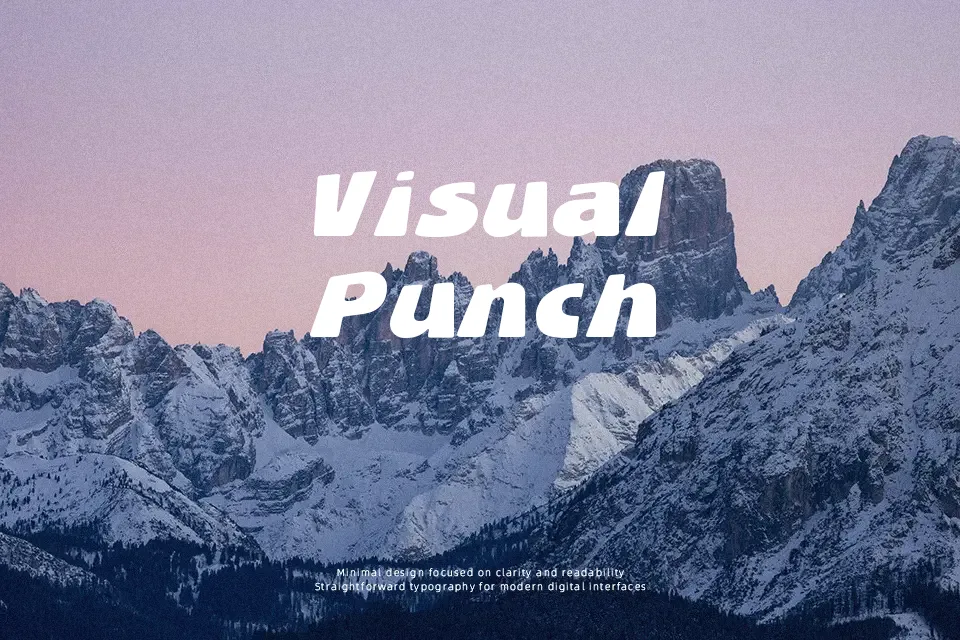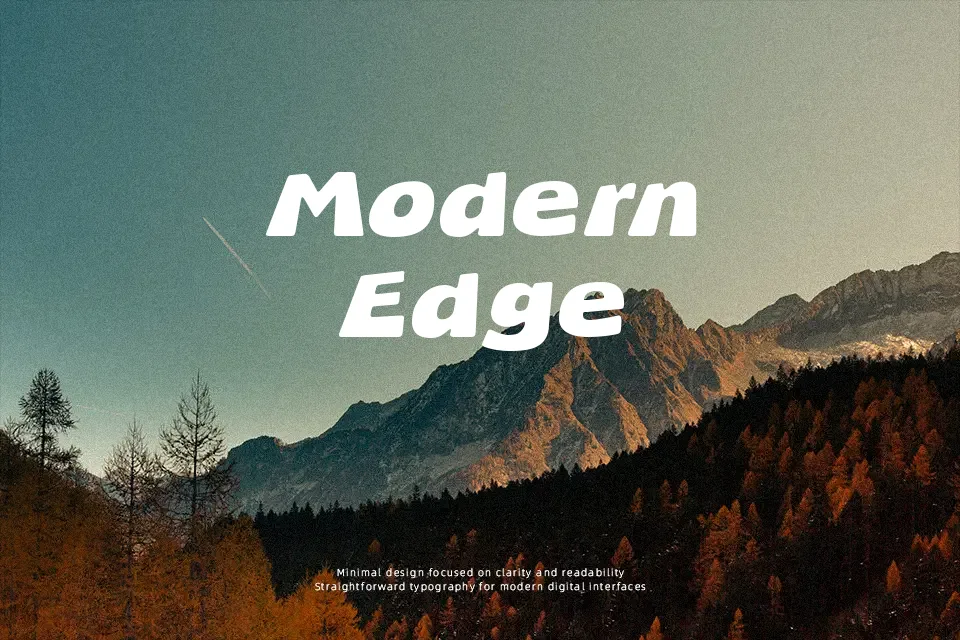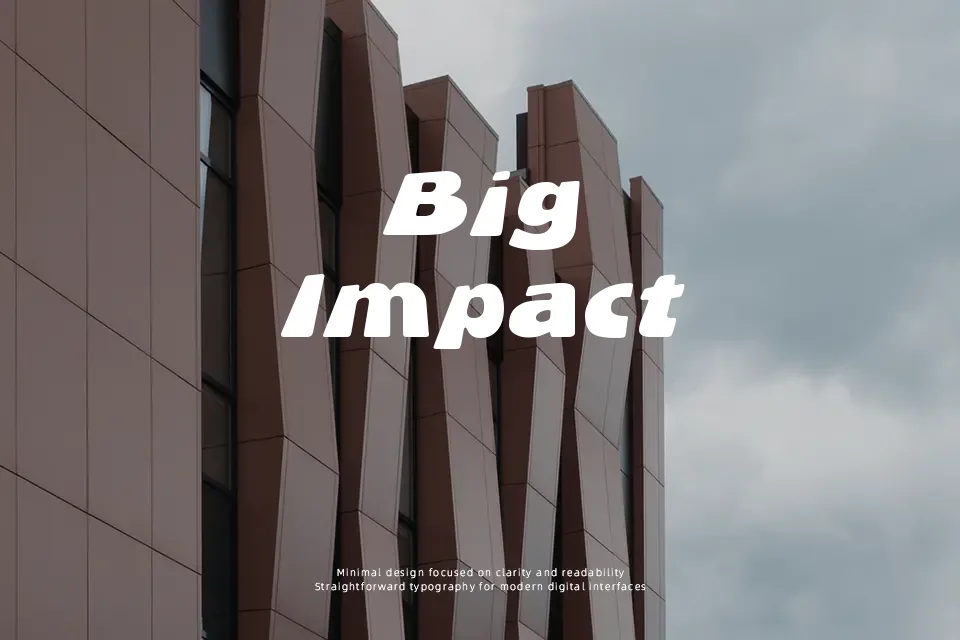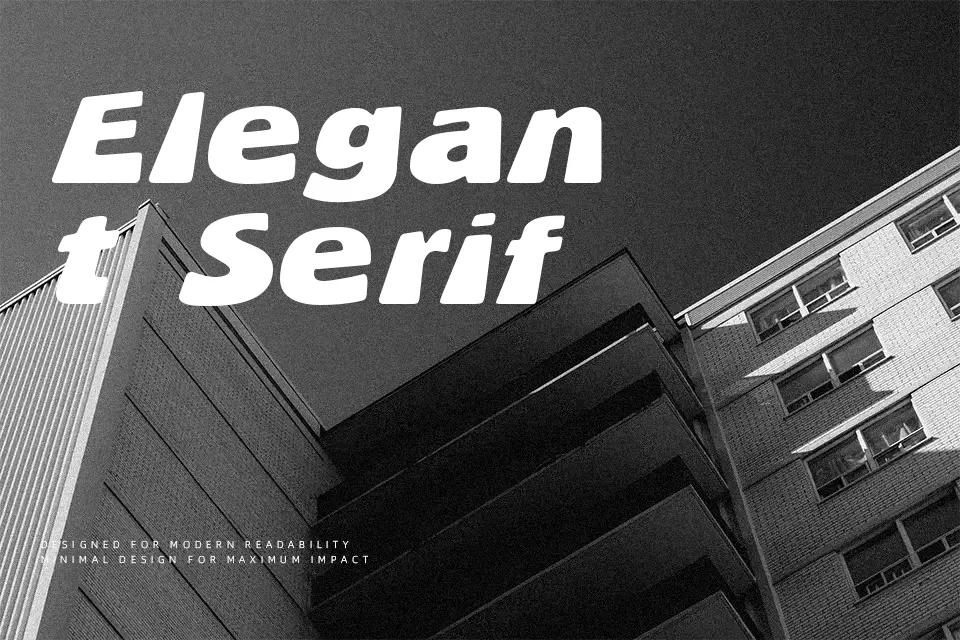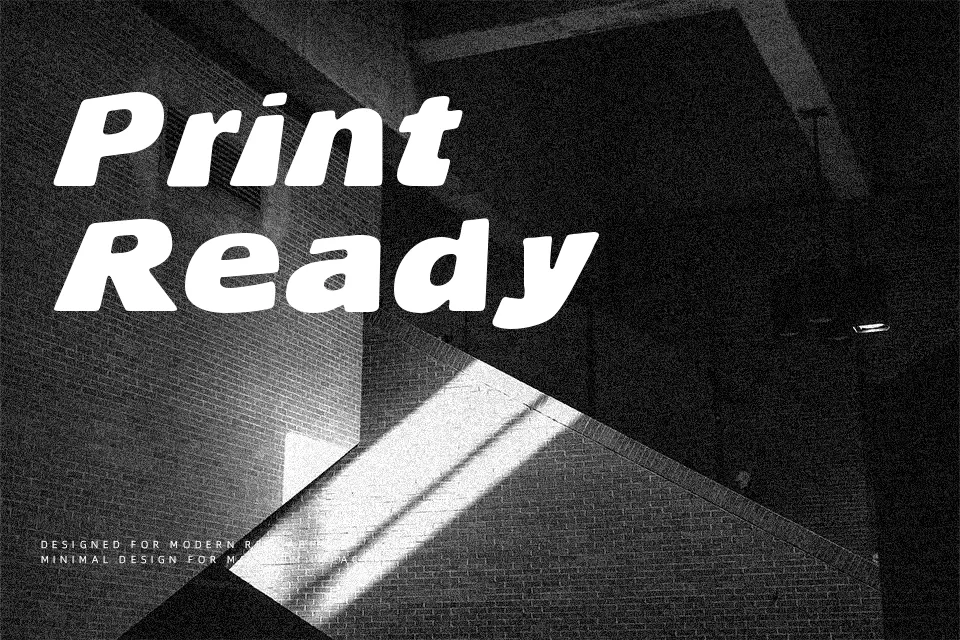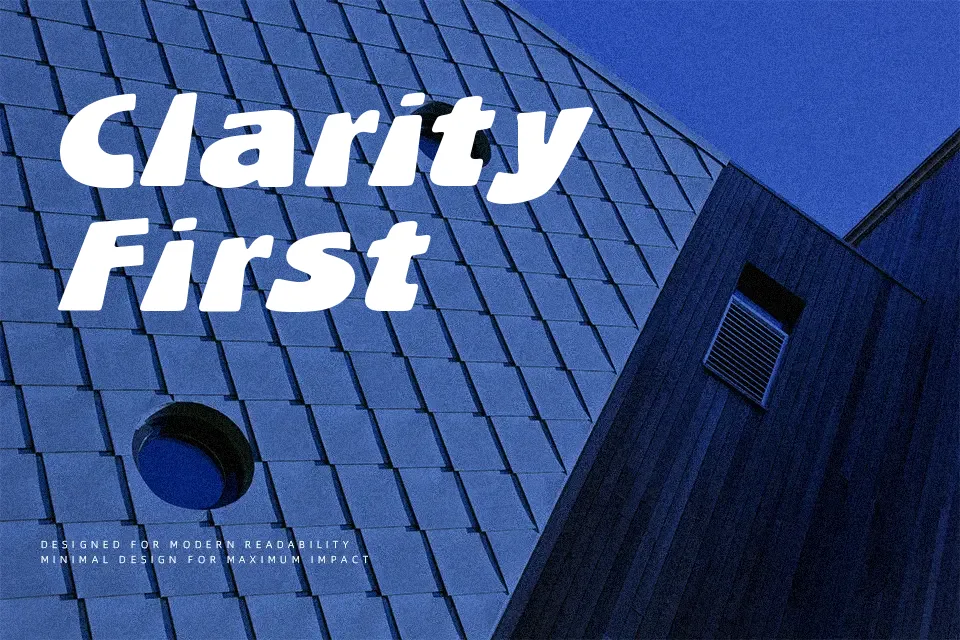
BlueStone Font
Designed by Frank Kiener
BlueStone by Frank Kiener is a striking sans-serif typeface characterized by a bold, italicized posture. Its thick, uniform strokes and condensed structure deliver a robust, energetic visual presence. The letterforms carry a subtle playfulness that bridges standard display typography with a lively cartoon aesthetic. This design shines when applied to dynamic logos, high-impact advertising campaigns, and vibrant event posters needing immediate visual weight. Conversely, due to its slanted nature and heavy construction, BlueStone struggles in long-form reading contexts. It fails to deliver in editorial body text, dense packaging information, or small digital interfaces where strict legibility is critical. Compared to traditional sans-serifs, this bold option offers significantly more personality and forward momentum.
High-impact advertising campaigns
Playful brand logos and identity
Attention-grabbing event posters
Vibrant headline typography
Long-form editorial body text
Small digital interface elements
Dense product packaging information
Formal corporate documents
Perfect for advertising, headline, and kids, with a bold and cartoon style.